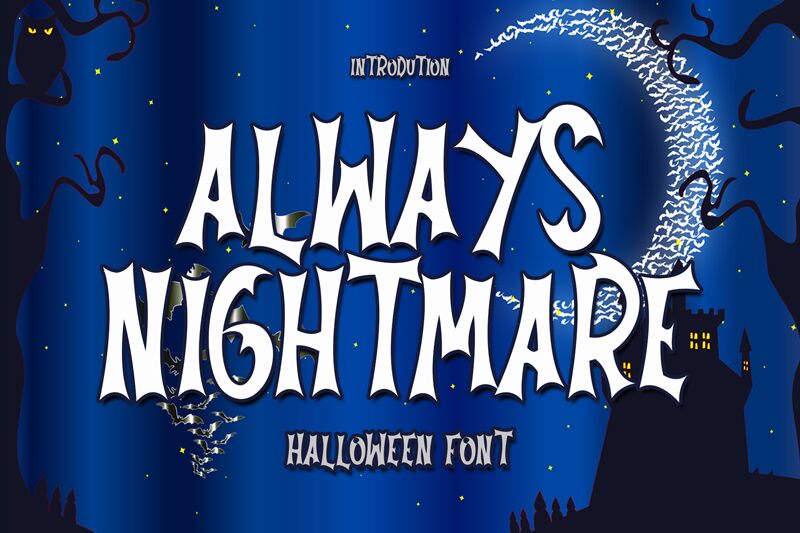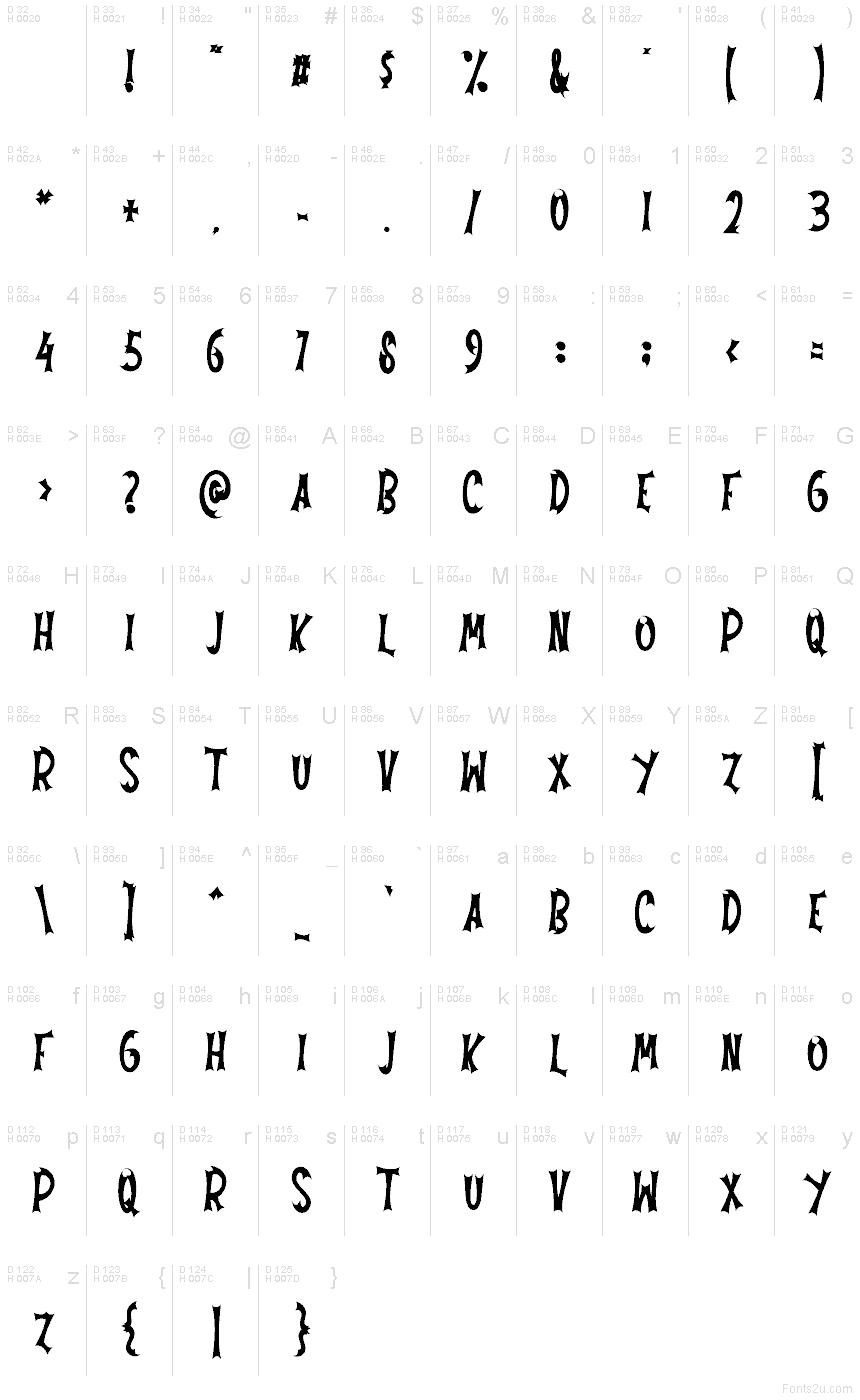
Always Nightmare
Always Nightmare font by Creatype Designer is a free Halloween display font. Its scratchy, claw-tipped strokes and crooked rhythm look like they were carved with a shaky knife, delivering instant goosebumps without clutter. The tall, uneven forms create a jagged silhouette that reads fast at a glance yet keeps the mood deliciously eerie.
Using Always Nightmare, you can nail haunted house posters, party invites, horror podcast covers, trick-or-treat bag graphics, seasonal packaging, and spooky social posts. The lively contrast and spiky accents draw eyes from across the room, so headlines pop even in dim, candlelit palettes. Pair this free font with a clean, narrow sans for body copy, and add a touch of letterspacing to sharpen the chill.